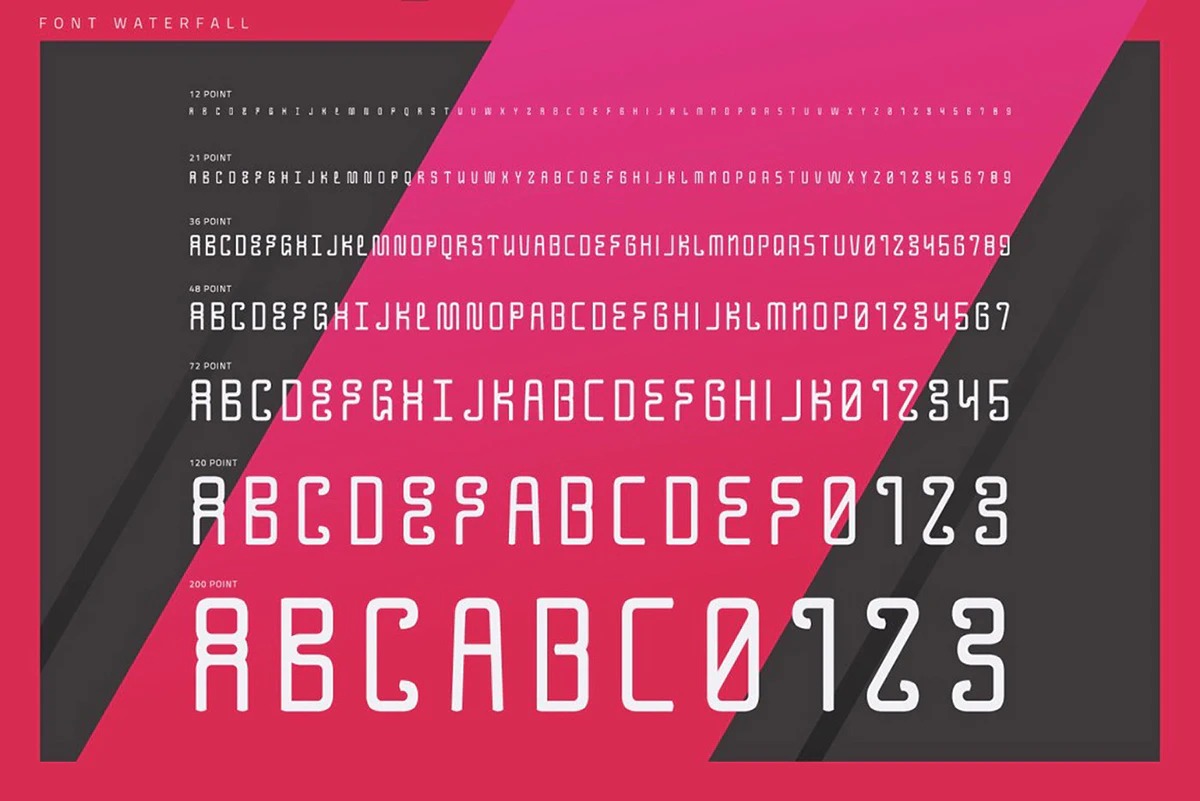
Shampoo Display Font
A modern sans serif font with beautiful swash. It has unic construction for the future style. Shampoo is an unusual typeface with its looping elements, multiple bars and arrow-like end caps. With it’s being such a different approach and direction. The font is a perfect choice for label, branding, packaging, poster, and logo.